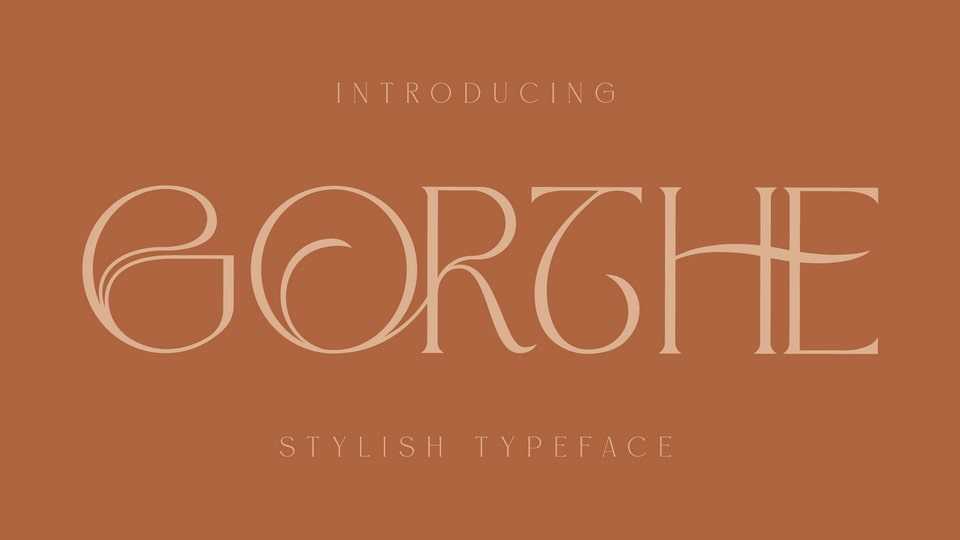
Gorthe Font › Fontesk – Fonte Grátis
Gorthe Font › Fontesk
Download Gorthe font, a sophisticated serif typeface that has own unique style and modern look. Gorthe font is perfect for an elegant and luxury logo, book or movie title design, fashion brand, magazine, clothes, lettering, quotes, and so much more.